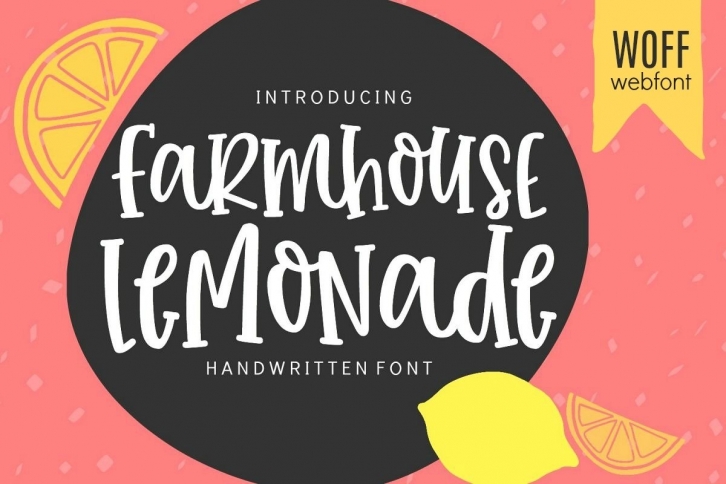
Web Farmhouse Lemonade is a trendy and unique font with an authentic style. It was designed by Sabrina Schleiger Design - SVG Bliss and it's a great choice for creative people who need such a font. It was released on October 27, 2020 and the file size is 5.15 MB. Web Farmhouse Lemonade will add an organic vibe to any design idea!